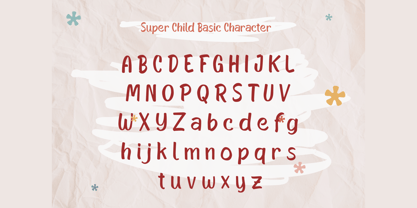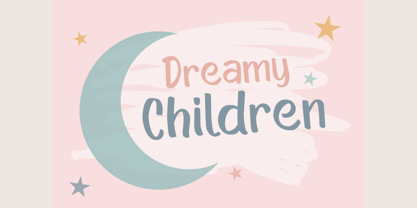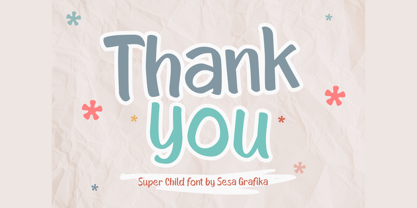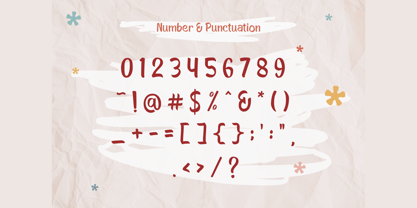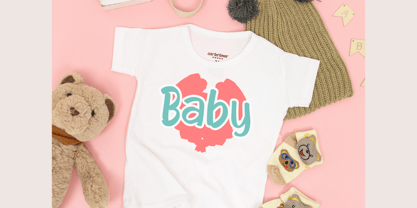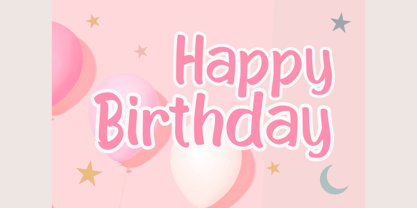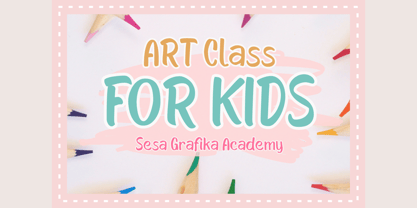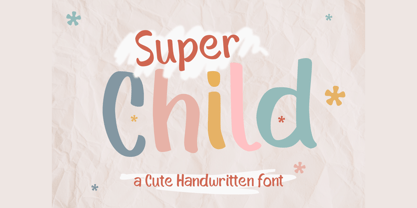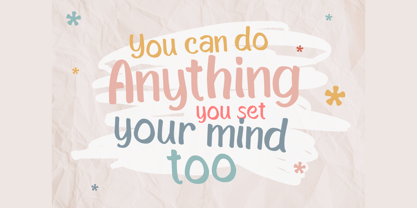
Super Child
by Sesa Grafika
The Super Child Font Family was designed by Wisesa Purba Giandar and published by Sesa Grafika. Super Child contains 1 styles.
Super Child is a sweet and cute handwritten font. Fall in love with its incredibly versatile style and use it to create gorgeous wedding invitations, beautiful stationary art, eye-catching social media posts, and much more.
Super Child support for various languages ( Multilingual Support )
with a feel like a child’s writing, your design will be increasingly popular with consumers. Very suitable for various designs of children, romance and other happy occasions.